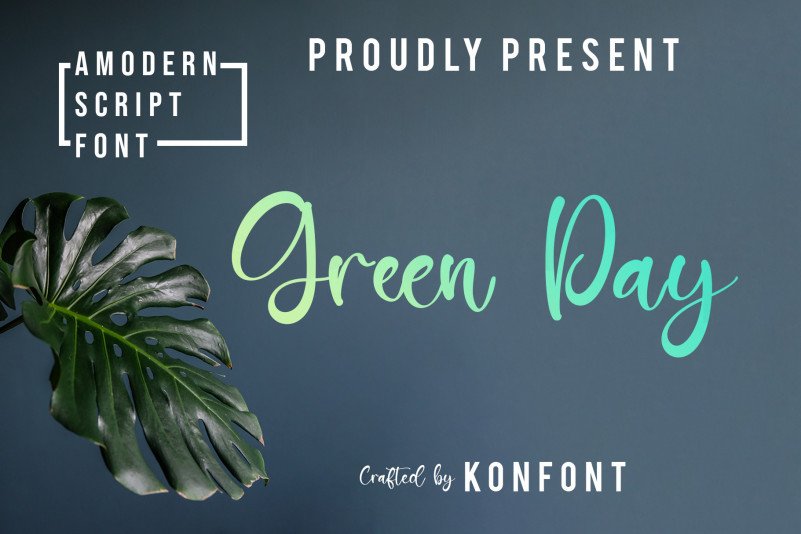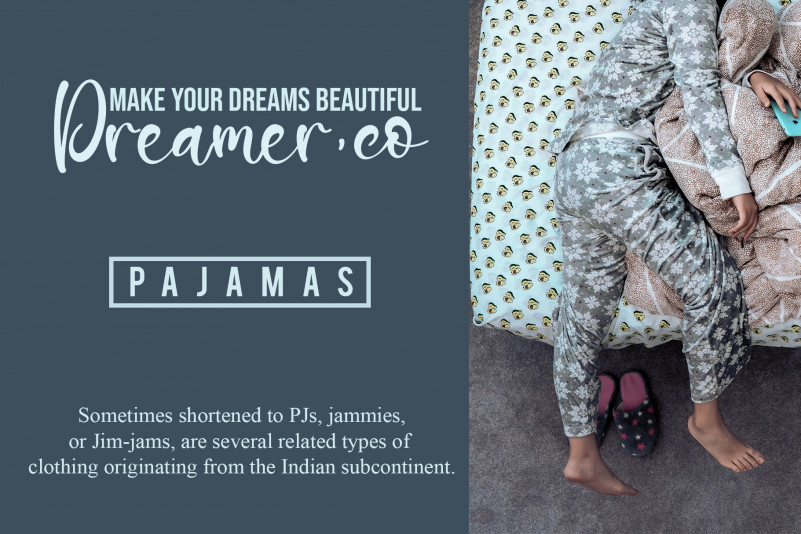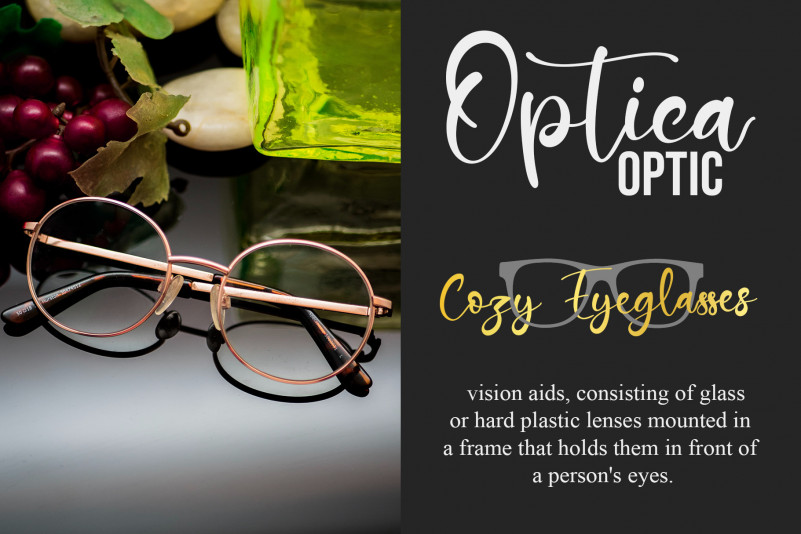
Green Day Script Font
Introducing our New Font, very suitable as to make adorable invitation for wedding, birthday, special day. A collection of letters and numbers suitable your projects also great for Logotype, Branding Design, Logo Design, Digital Lettering Arts, T-Shirt/Apparel, Poster, Magazine, Signs, Advertising Design, and also perfect for your other projects branding.